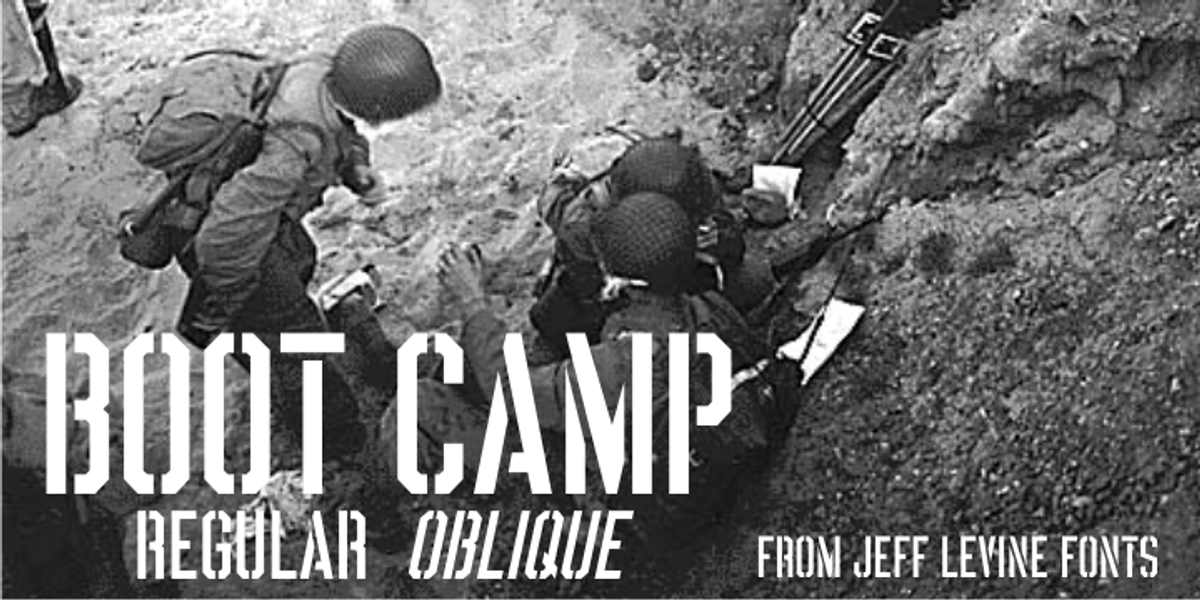
Boot Camp JNL
Boot Camp JNL has the same roots as Jeff Levineís Condensed Stencil JNL, as they were both modeled from a set of vintage brass interlocking stencils made by the Stafford Manufacturing Company.
The previous font was drawn from limited examples of the stencils seen in an online photograph, so a number of the basic characters had to be improvised.
Since then, a nearly complete set was obtained and the alphabet and numerals are truer to the original design.
Additionally, both Regular and Oblique versions of Boot Camp JNL are available.